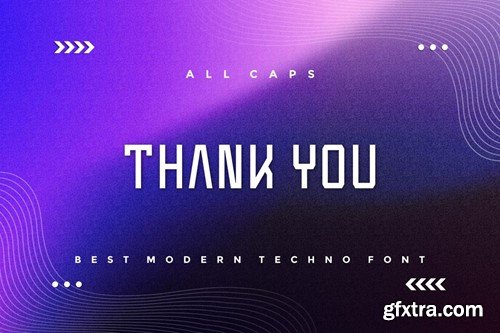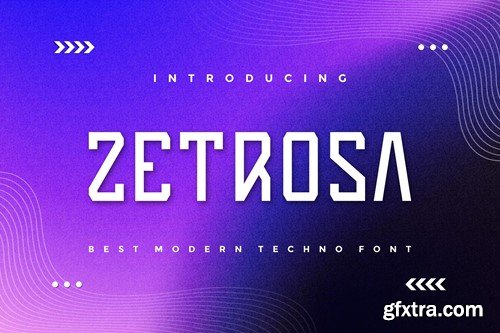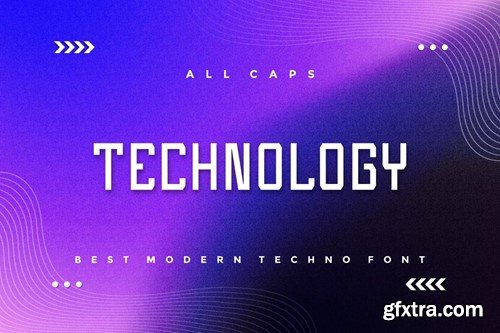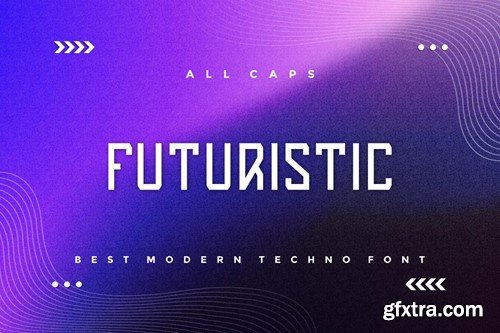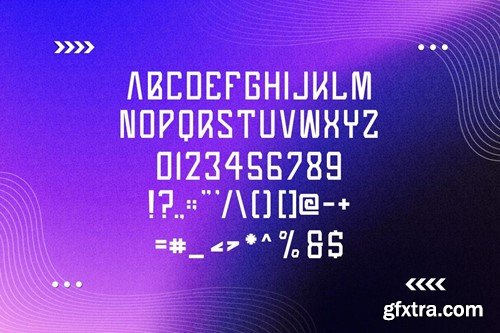
泽特斯拉 - 现代 techno 字体 EMHRQDW
Zetrosa - Modern Techno Font EMHRQDW
Zetrosa - Modern Techno Font
Introducing our new product Zetrosa - Modern Techno Font
Zetrosa is a bold, modern display font with playful flair, ideal for attention-grabbing headlines, logos, and diverse design projects. Versatile and readable in both digital and print, Zetrosa adds a dynamic touch to your message.